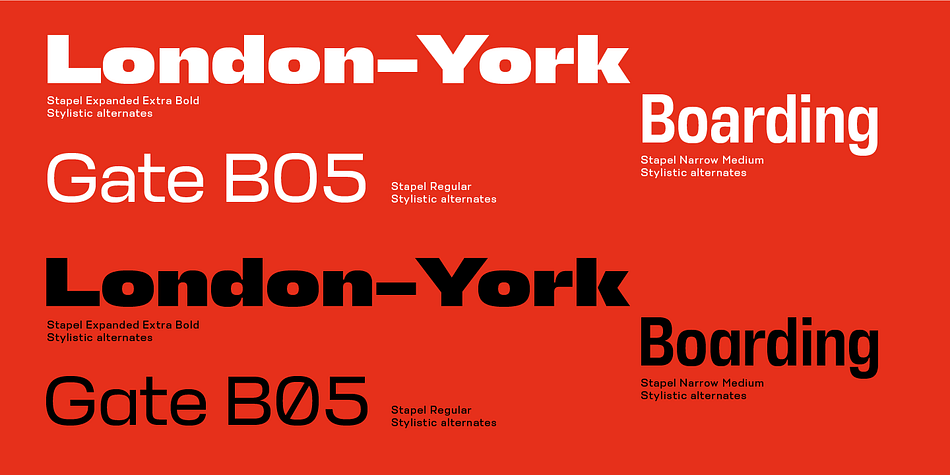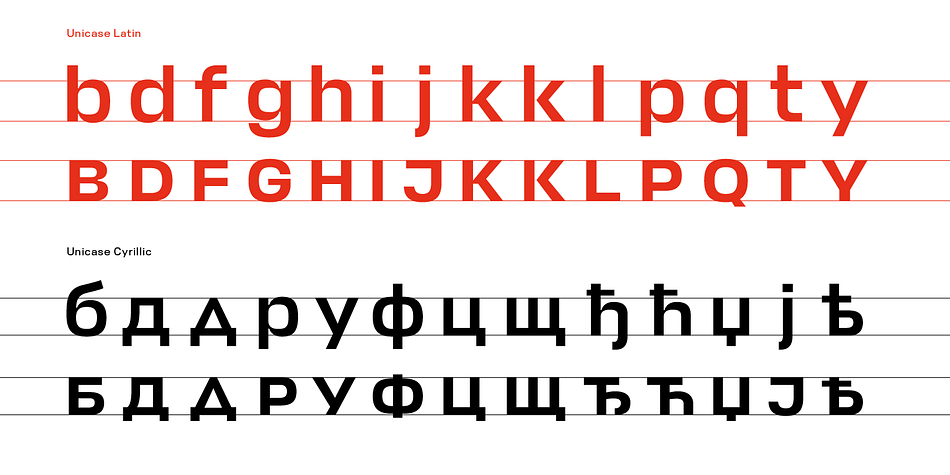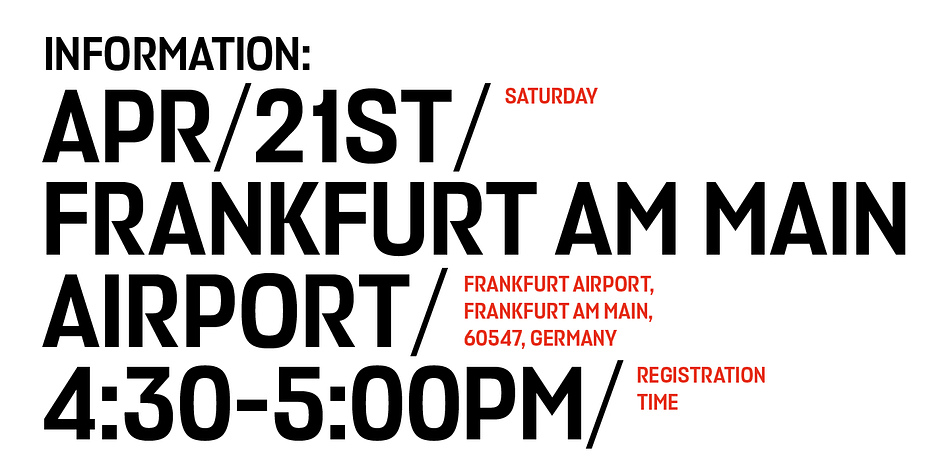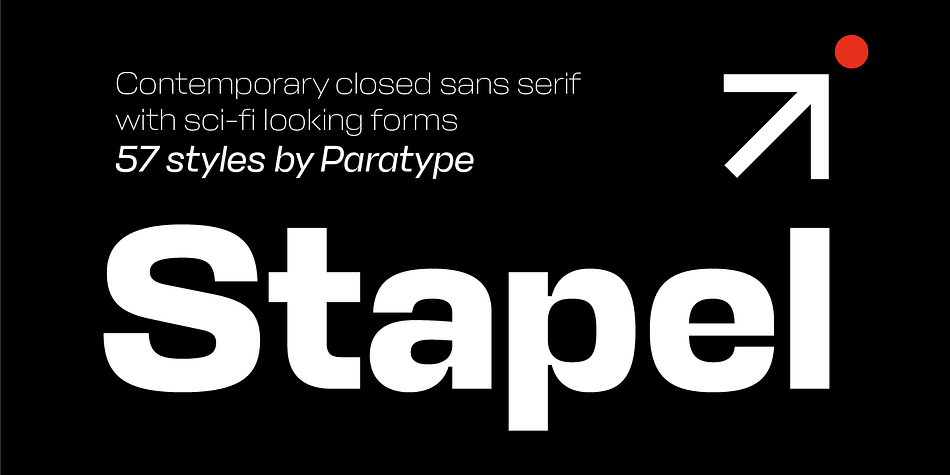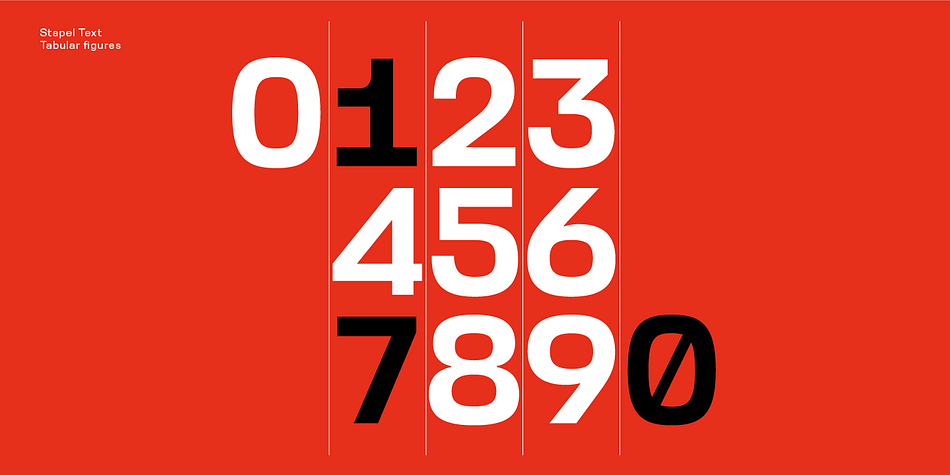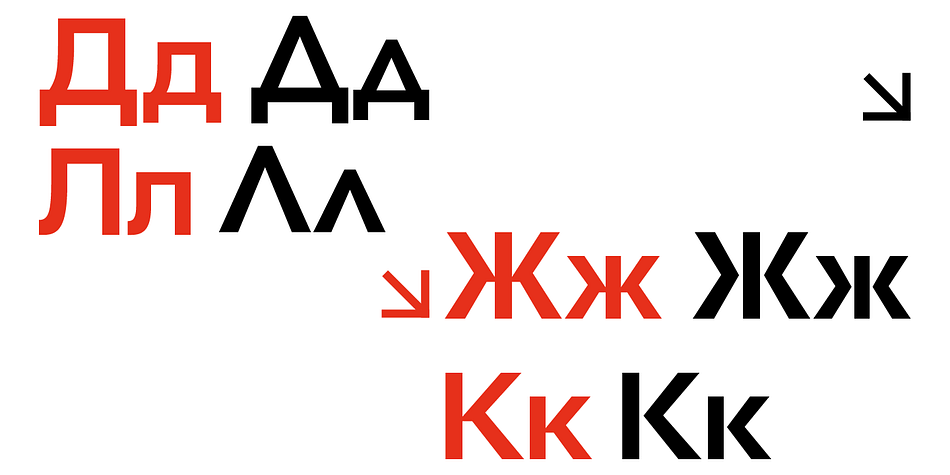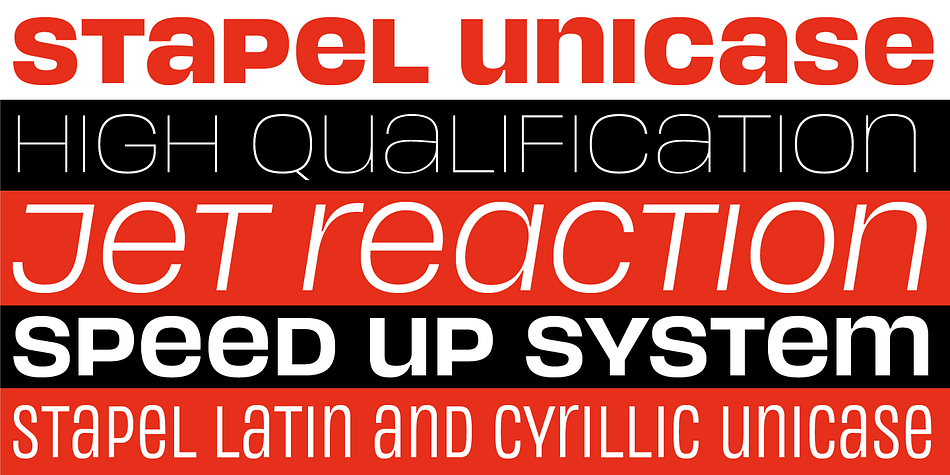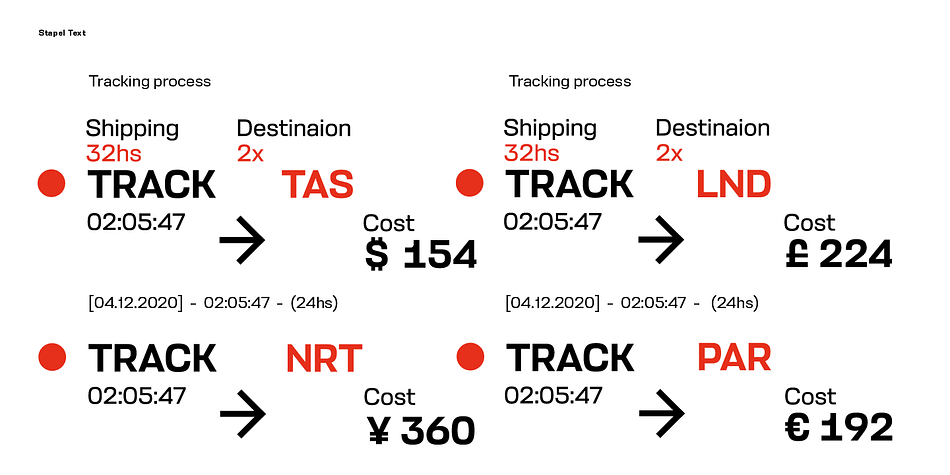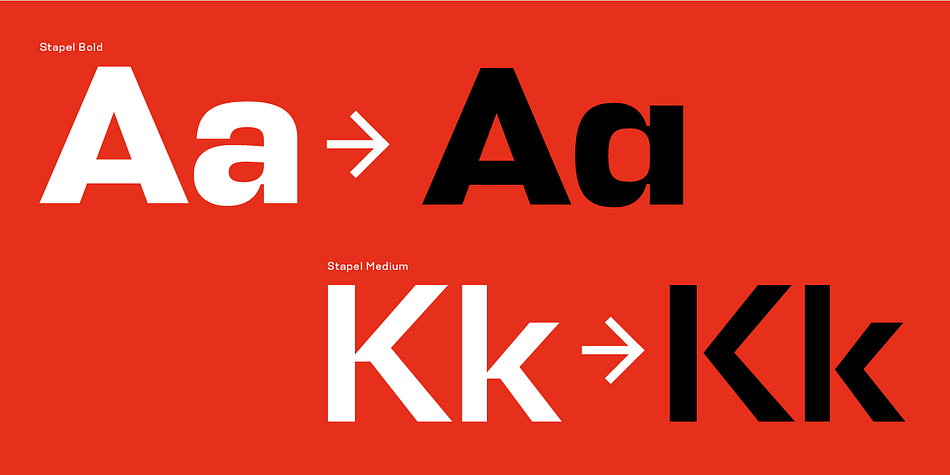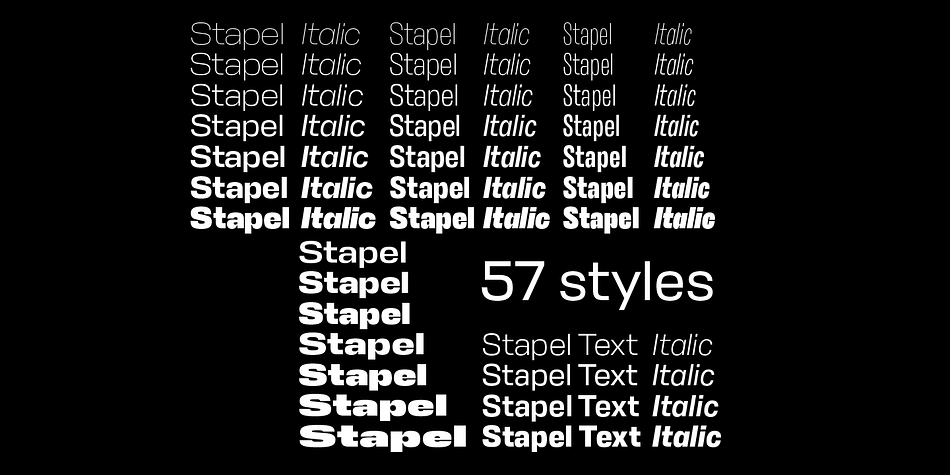
Stapel
Designed by Alexander Lubovenko, Stapel is a sans serif font family. This typeface has sixty-one styles and was published by ParaType.
Stapel is a contemporary closed sans serif with sci-fi looking forms and eloquent, thin stroke joints. Mentioned at the GRANSHAN 2022 and shortlisted for the D&AD and ADCR competitions.
Wide range of styles and typographic features makes Stapel ideal for use in brand identity, infographics, and all kinds of designs related to technology, science, finance.
The superfamily consists of three subfamilies of different widths, each contains seven weights with corresponding true italics. As a bonus, there are several wide bold styles plus. All these styles work perfectly in headings and short display texts.
Another functional addition is a text set of upright and italic styles with lower contrast, included to the type system to work in body text of small and medium point sizes.
Most styles include alternate characters, proportional and lining figures, math symbols, fractions, currency signs, and case-dependent punctuation.